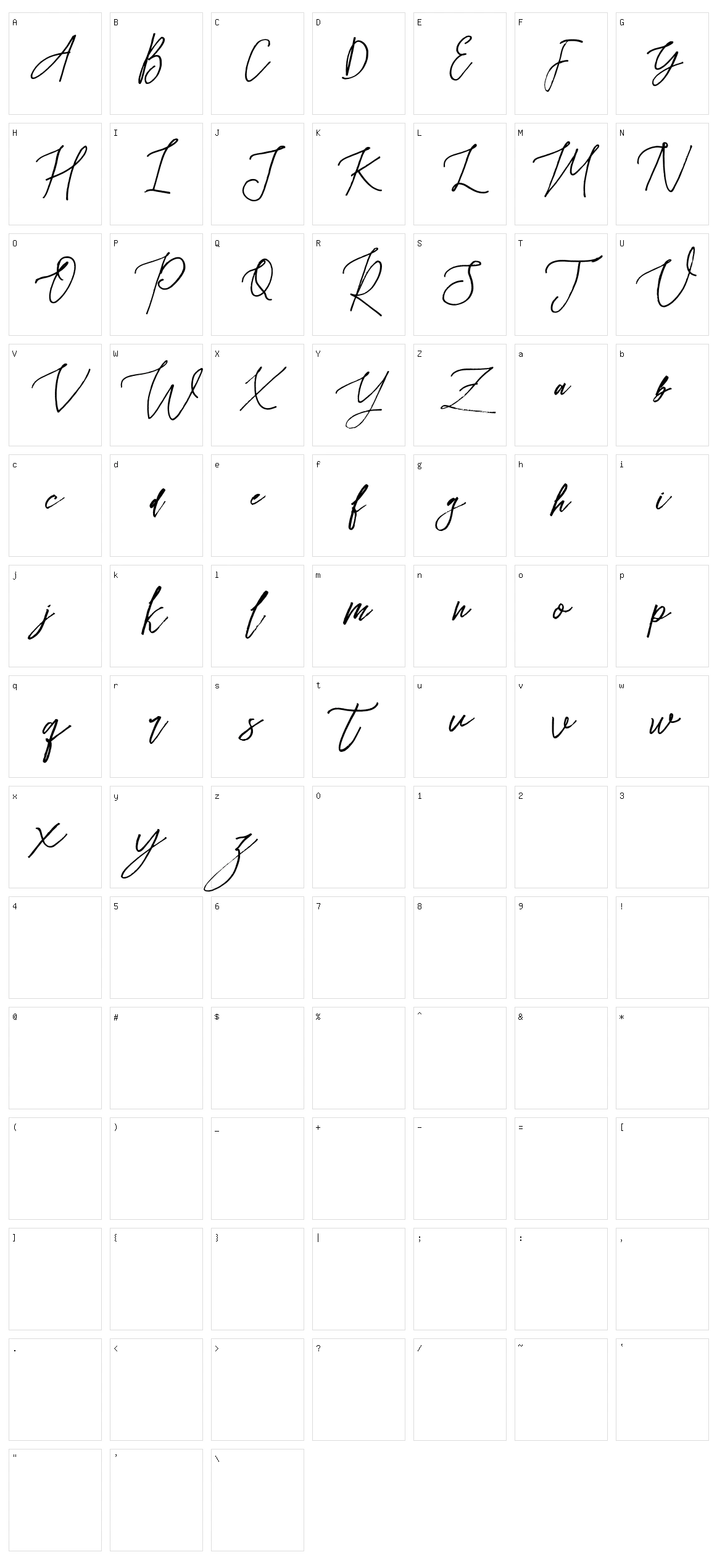
The free font Rafailla is carefully designed by Mindtype Co., showcasing a thoughtful balance of creativity and usability and falls under the Script font style. When you download the ZIP file, it contains only 105.87 KB of font files, making it lightweight and quick to download. Please review the license details below to understand permitted usage and distribution rights. If license information is not available, we recommend using this font for personal projects only or contacting the author directly for commercial usage permissions.